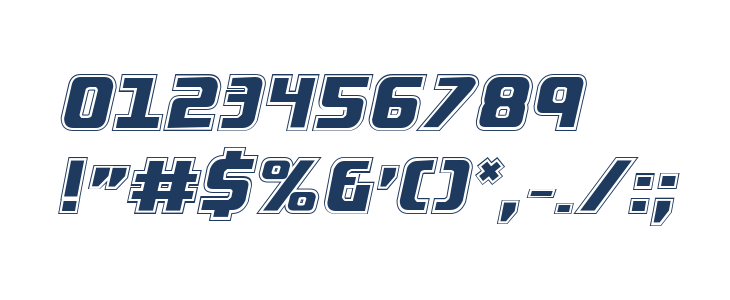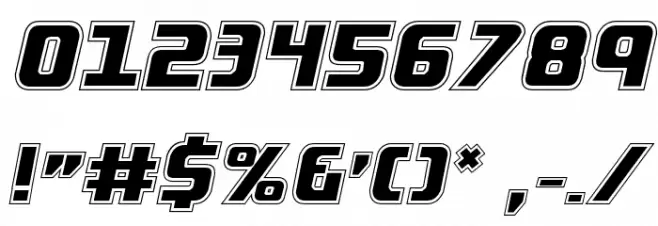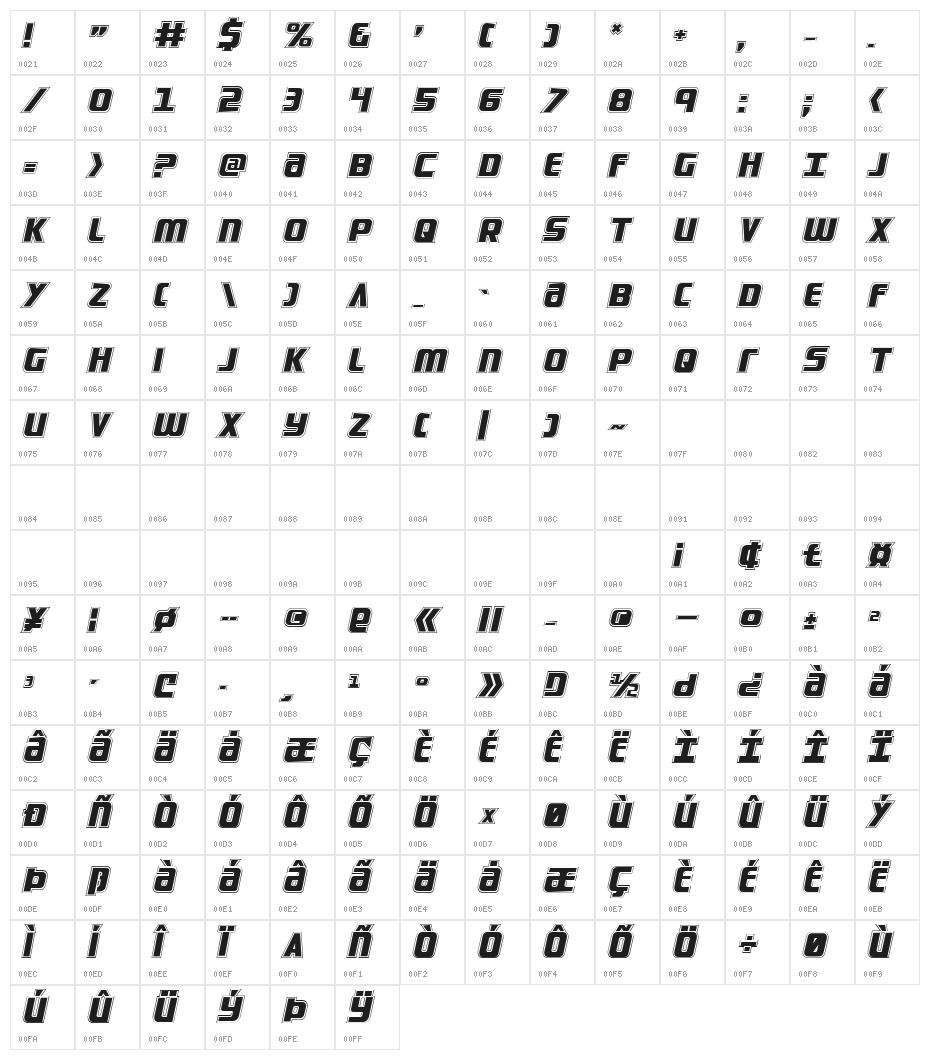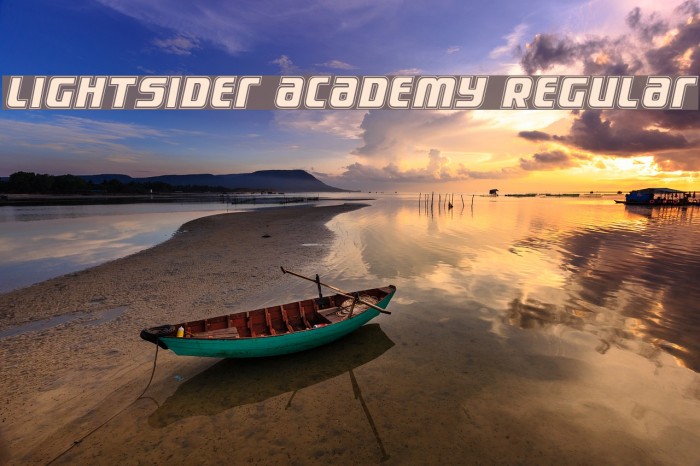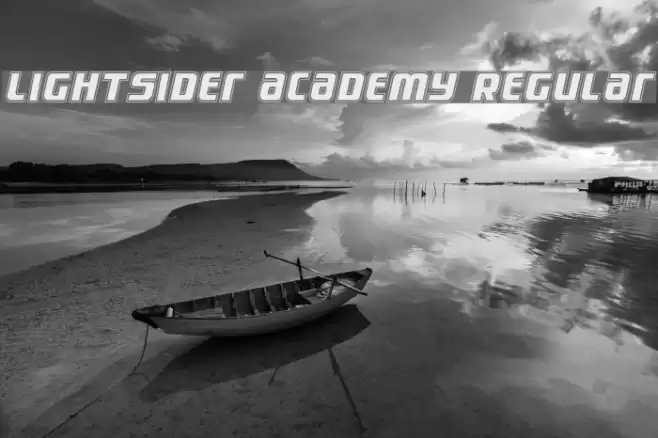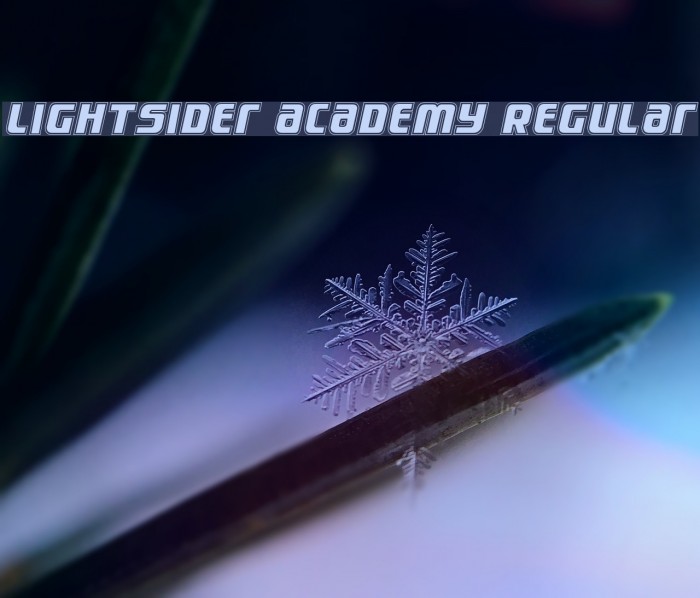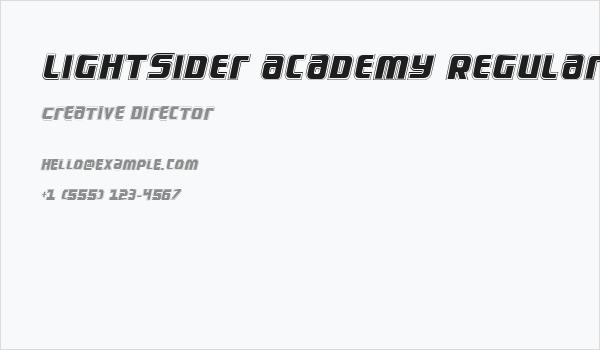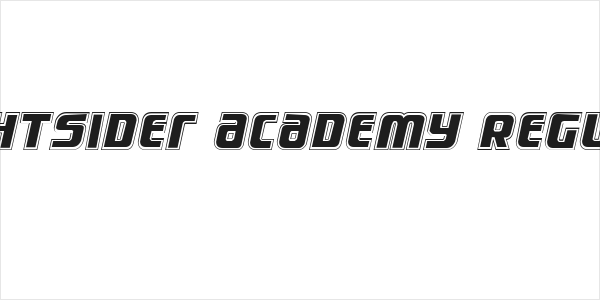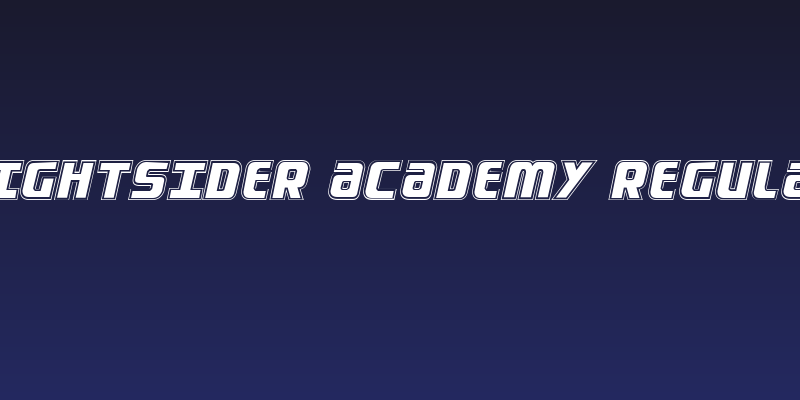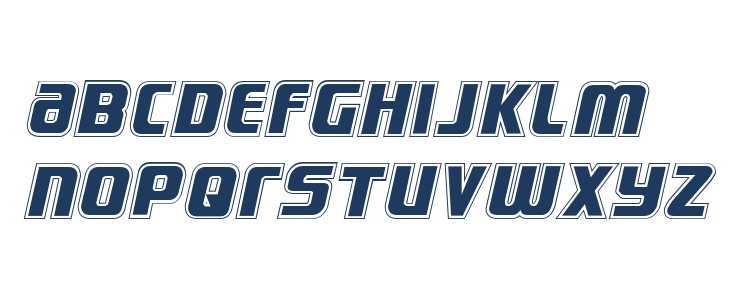
Lightsider Academy Regular Font
Lightsider Academy Regular Description
This font features a bold and dynamic style with a futuristic and sporty aesthetic. The characters are outlined, giving them a three-dimensional appearance that adds depth and interest. The uppercase and lowercase letters are consistent in their geometric design, with sharp angles and clean lines. The numerals and special characters maintain the same bold and outlined style, ensuring uniformity across all glyphs. This font is highly legible and makes a strong visual impact, suitable for projects that require a modern and energetic look.
| Proposed Projects | Ideal for sports branding, futuristic designs, video game titles, and dynamic posters. |